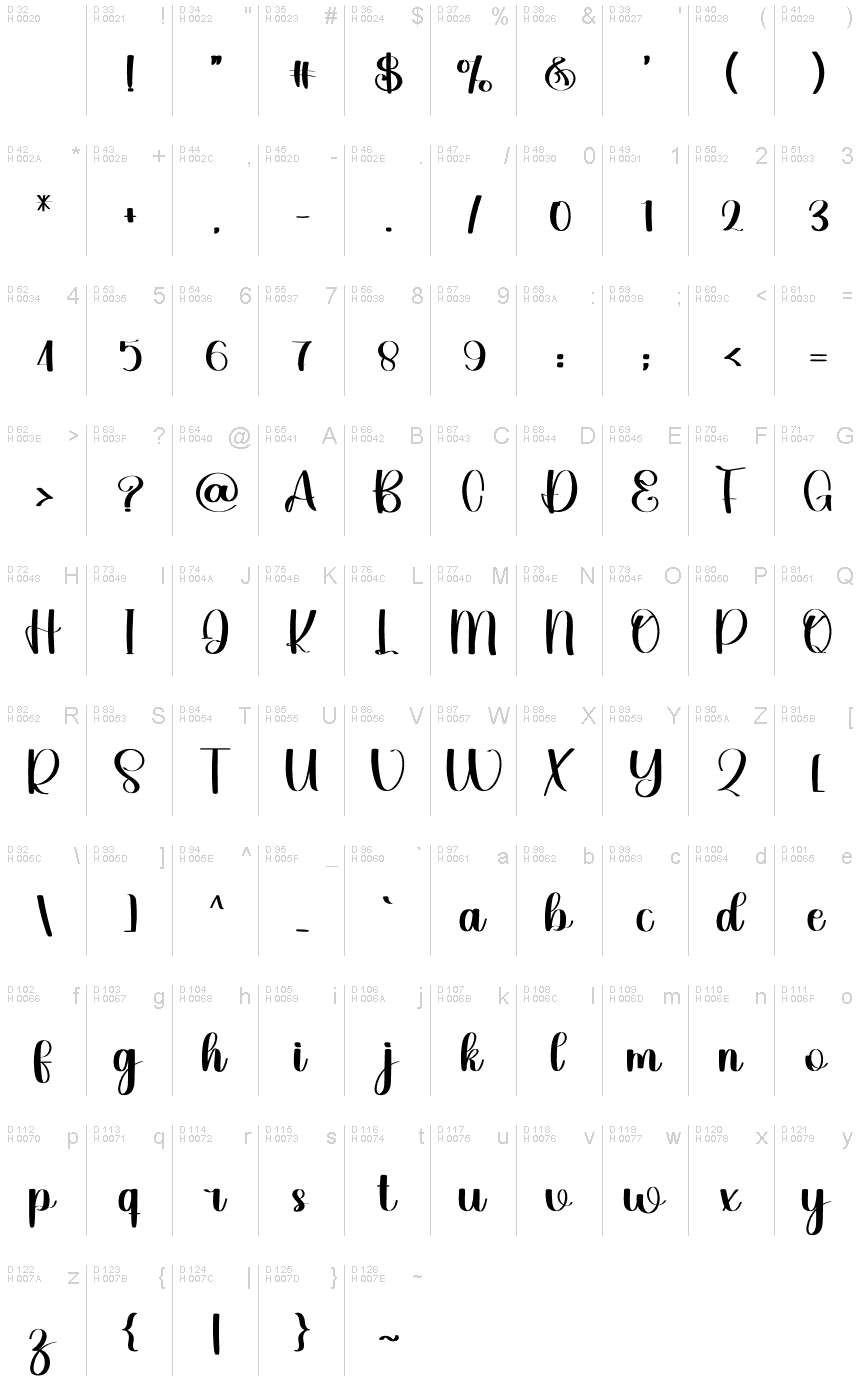
Santa
Santa, a whimsical and charming semi-bold font designed by Inermedia Studio, brings a touch of love and warmth to any project.
With its lovely handwritten style, Santa is perfect for wedding invitations, greeting cards, and personal blogs. Its playful curves and unique character make it an ideal choice for children's book covers or party invitations.
Whether you're creating a cozy branding campaign or adding a personal touch to your social media posts, Santa is the font that will make your words come alive with joy and delight.